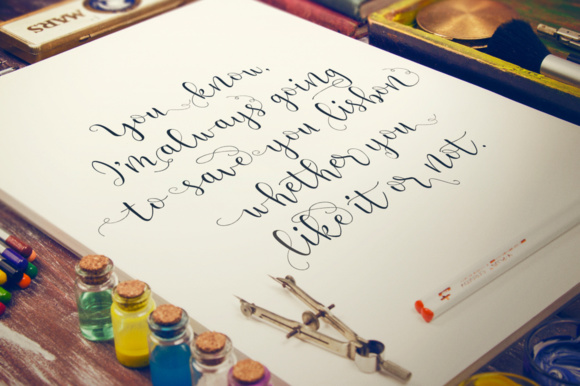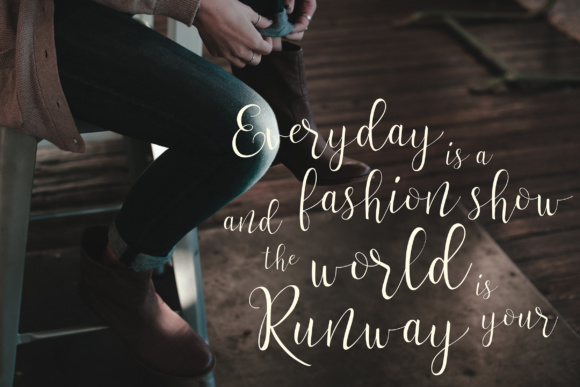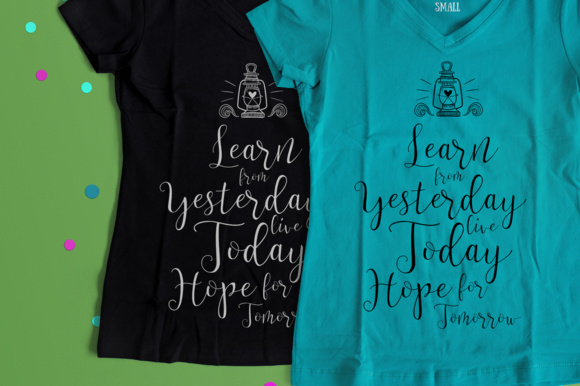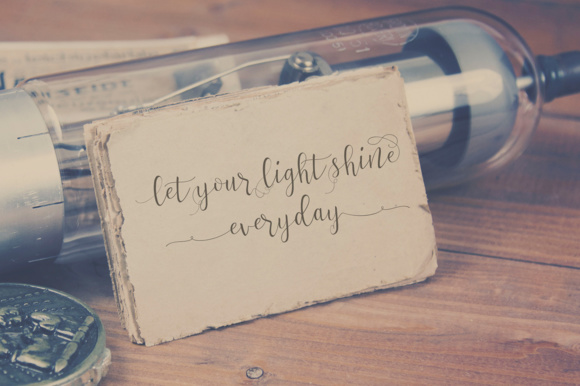
Introduction to Lisbon Font
Have you ever stared at a blank page, feeling the weight of a creative project on your shoulders? The blank slate can be daunting, but with the right design resources, it’s a blank check waiting to be filled. As a designer, you know the importance of having high-quality fonts that can elevate your work and make it truly unique.
That’s where the Lisbon Font comes in – a beautiful and refined calligraphy font that exudes a contemporary feel. With its vast array of glyphs and alternate characters, the Lisbon Font offers endless possibilities for designers looking to add a touch of sophistication to their designs. Whether you’re working on a creative project or just need a reliable design resource, the Lisbon Font is an invaluable asset that’s sure to impress.
Key Features of Lisbon Font
- High-quality design resource for creative projects, ideal for backgrounds, headers, and other design elements.
- Lisbon Font comes with a transparent background, making it easy to overlay on images or other design elements.
- Comes in a single size, making it easy to use across different design projects.
- Designed with a clean and modern aesthetic, making it suitable for a wide range of creative projects, from web design to print materials.
- Resolution-independent, ensuring that the font looks crisp and clear on high-resolution displays.
Honest Review: Lisbon Font
As a designer, I’m always on the lookout for high-quality design resources to elevate my creative projects. The Lisbon Font caught my attention with its sleek and modern aesthetic.
- ✨ High-quality typography: The Lisbon Font boasts a crisp and clear design that’s perfect for any project.
- ✨ Versatile: The font is suitable for a wide range of creative projects, from logos to magazine layouts.
- ⚠️ Limited language support: The Lisbon Font only supports a few languages, which may limit its use for international projects.
- ⚠️ Not ideal for complex text: The font may not be the best choice for complex text or headings that require a lot of emphasis.
Tips for Getting the Most Out of Lisbon Font